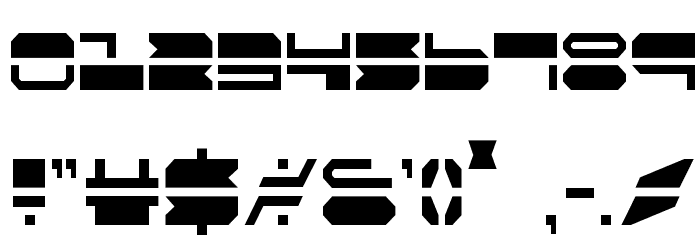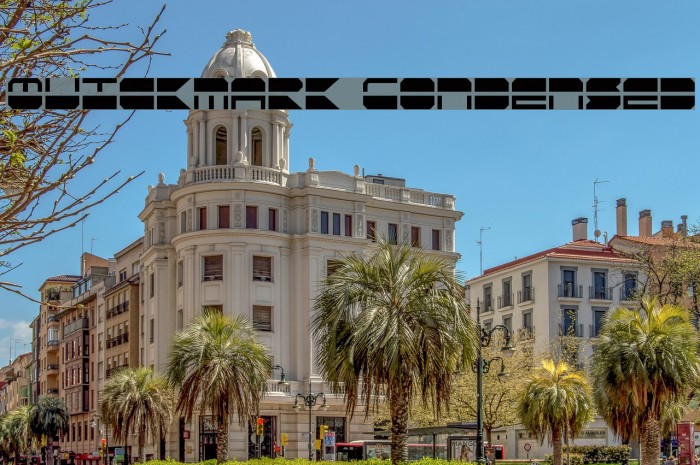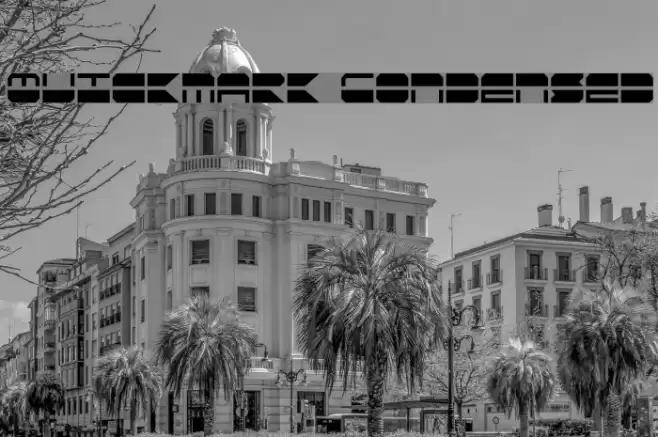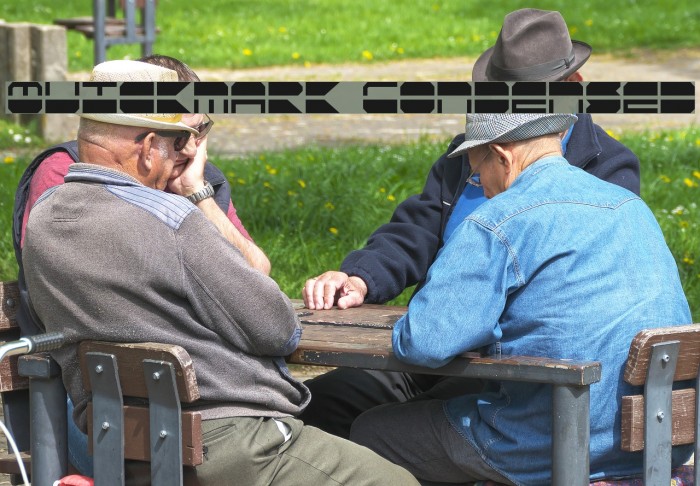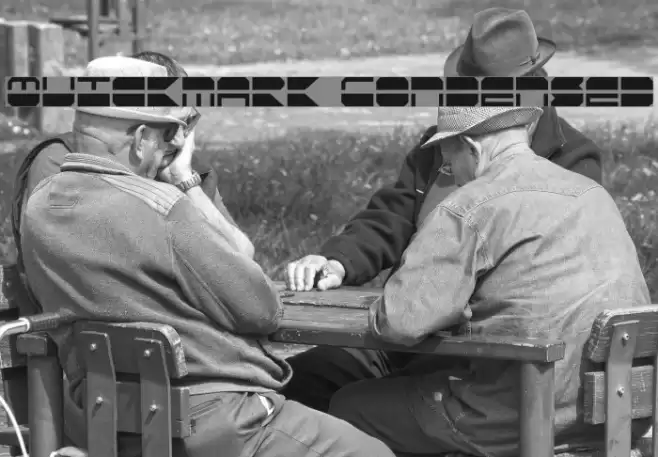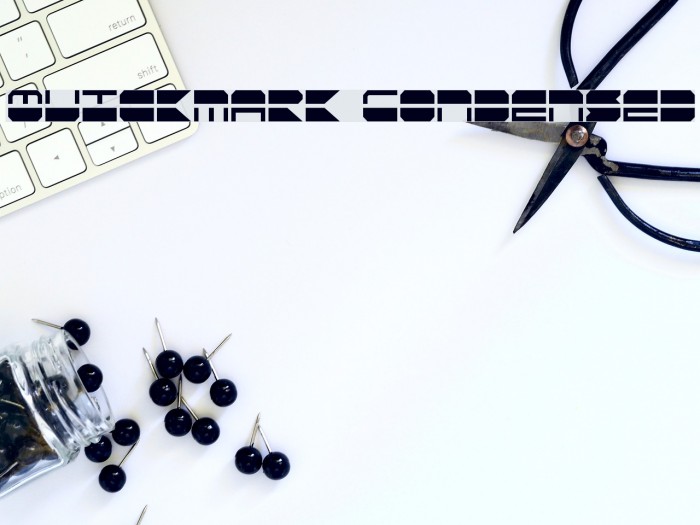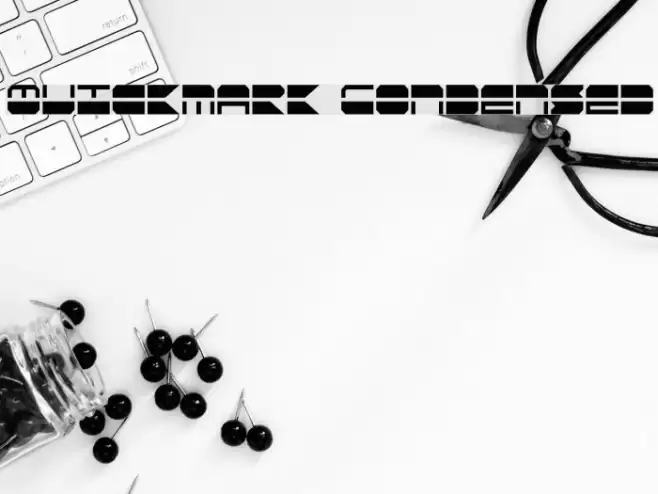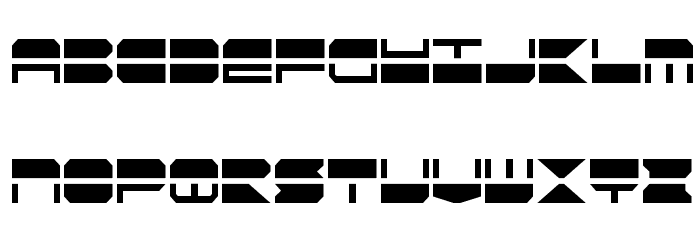
Quickmark Condensed Font
Quickmark Condensed Description
This font features a bold, geometric design with a futuristic aesthetic. The characters are constructed with sharp angles and straight lines, creating a highly stylized and modern look. The uppercase and lowercase letters maintain a consistent structure, emphasizing uniformity and precision. The numbers and special characters follow the same design principles, ensuring a cohesive appearance across all elements. The condensed width of the characters contributes to a compact and efficient use of space, making it suitable for impactful headlines and titles. The high contrast between the thick strokes and the negative space enhances readability while maintaining a striking visual presence.
| Proposed Projects | Ideal for sci-fi themed projects, tech branding, modern posters, and innovative product packaging. |